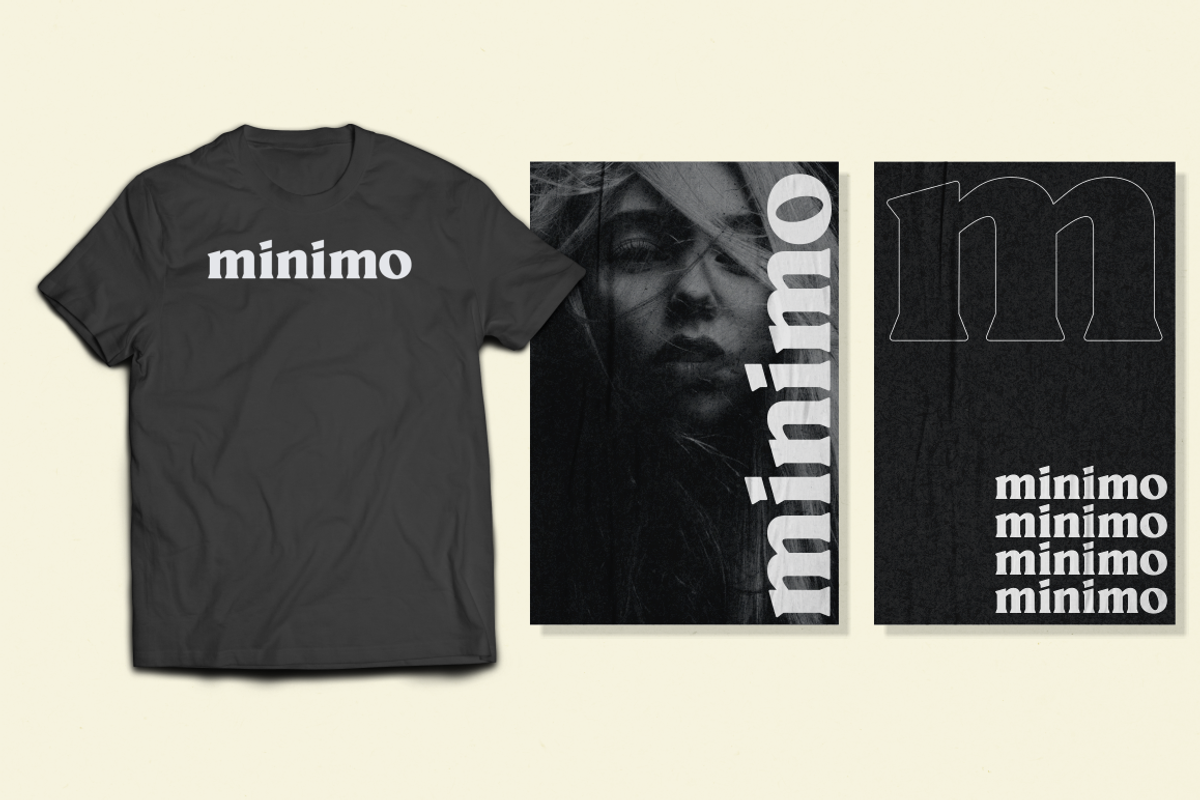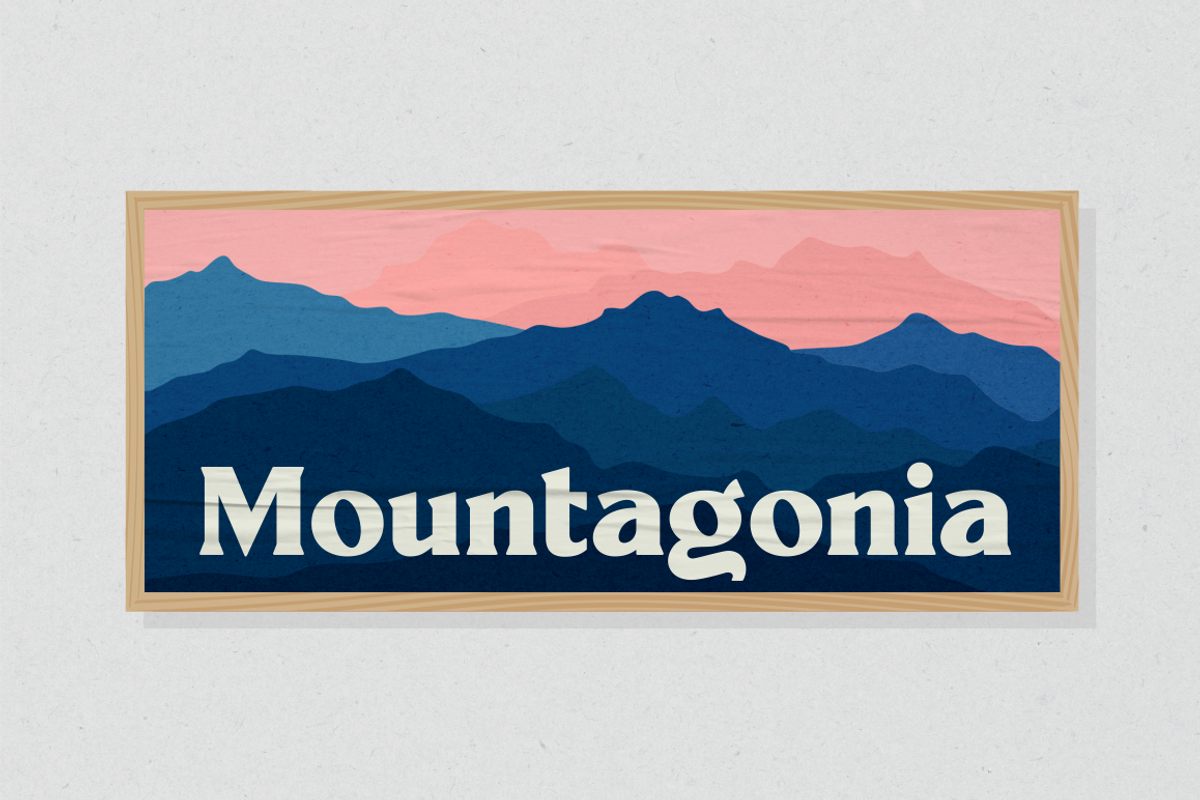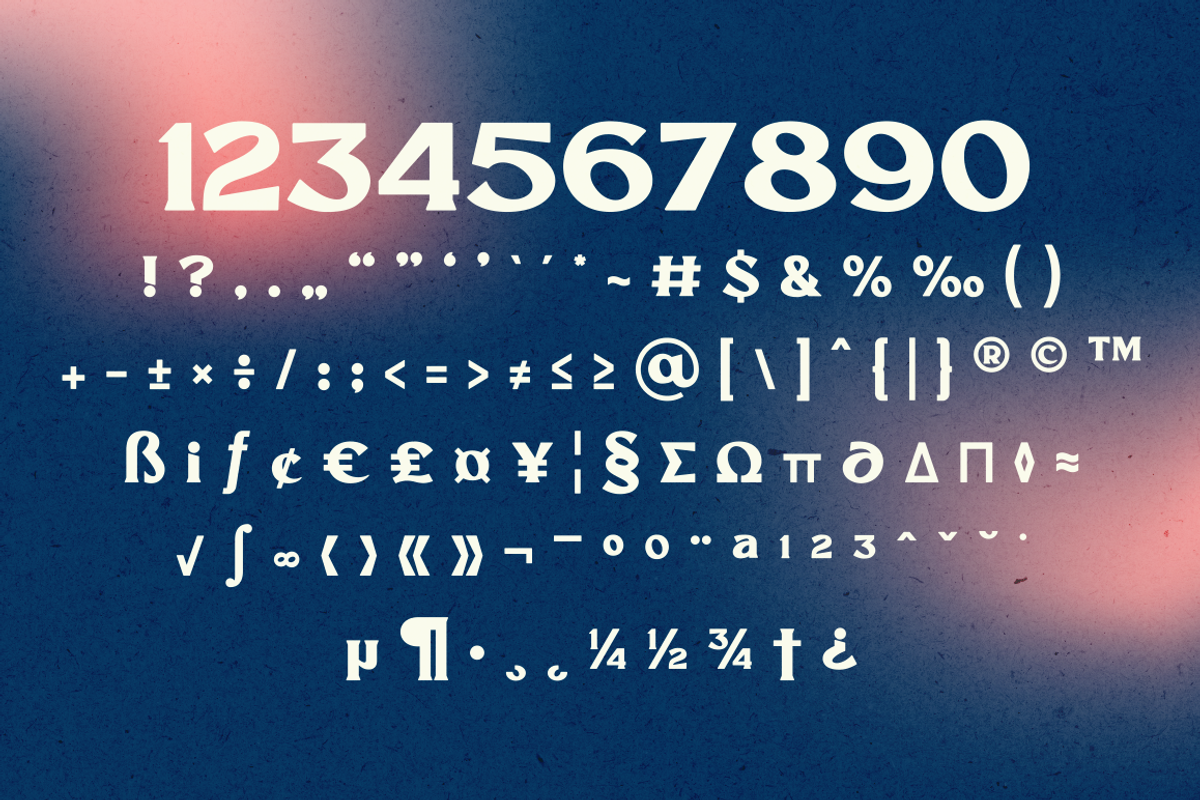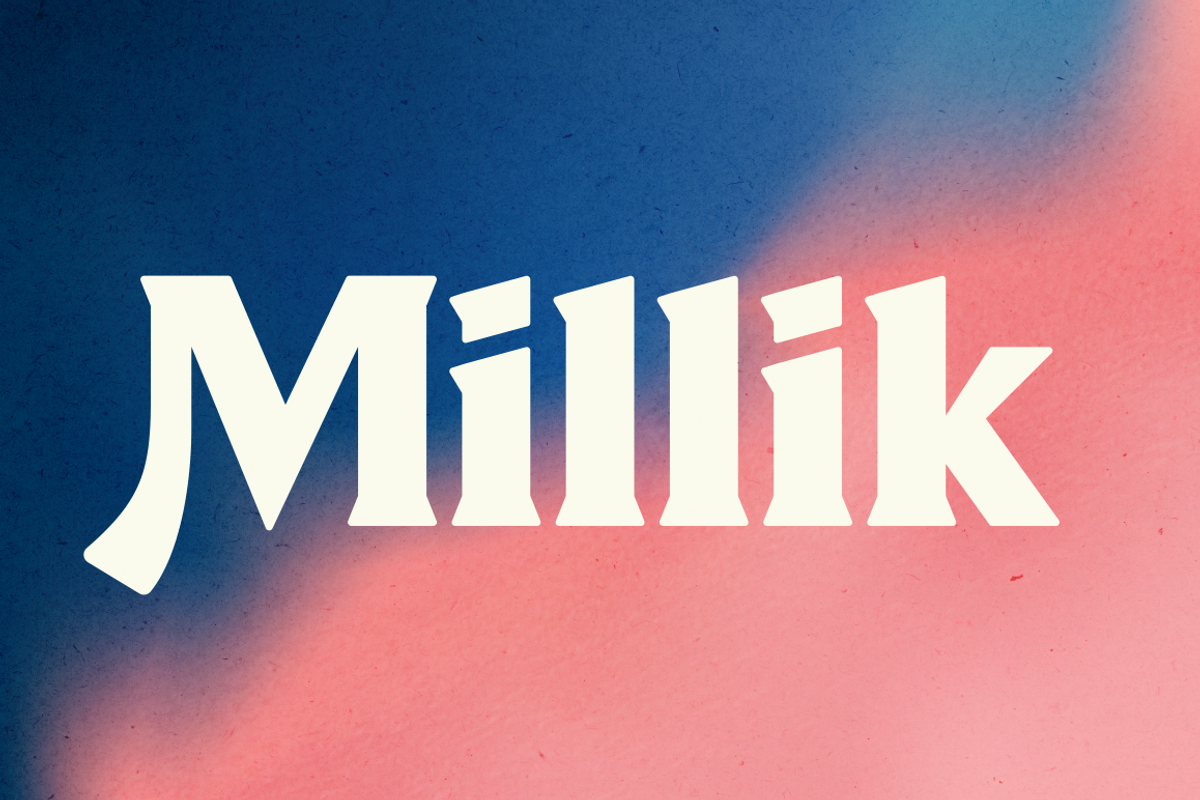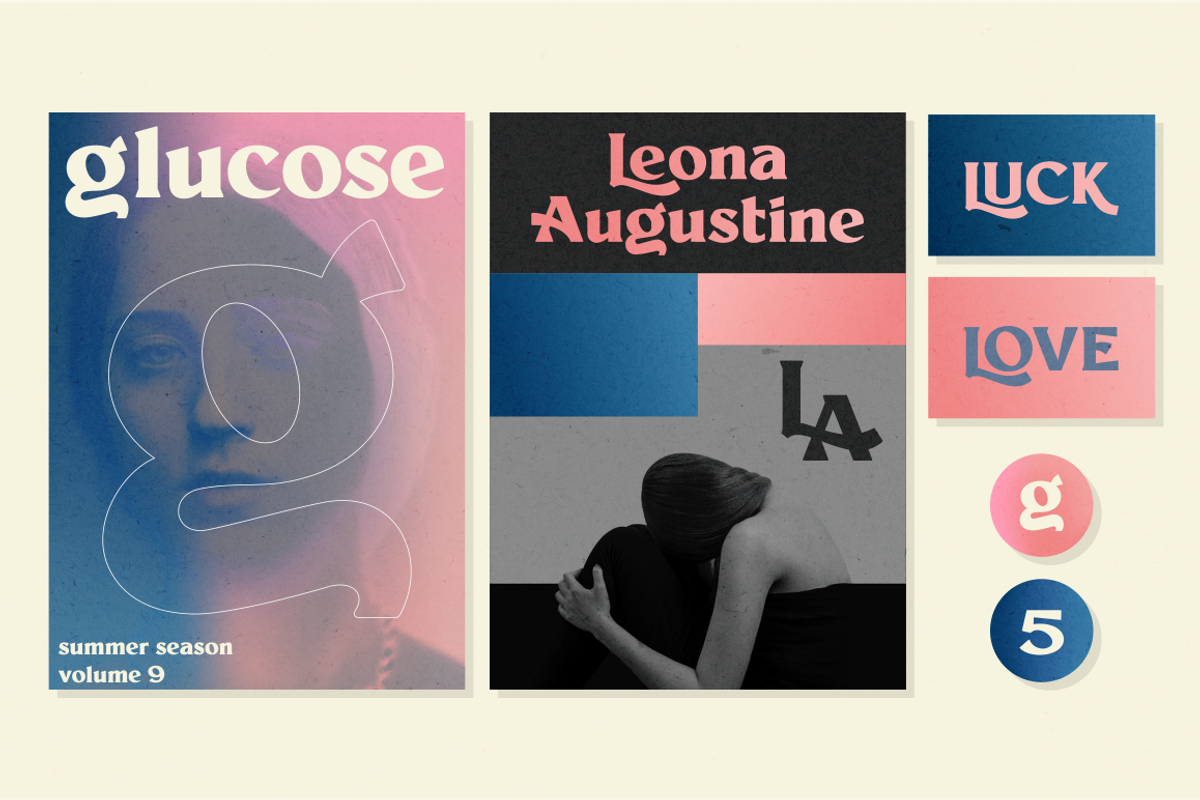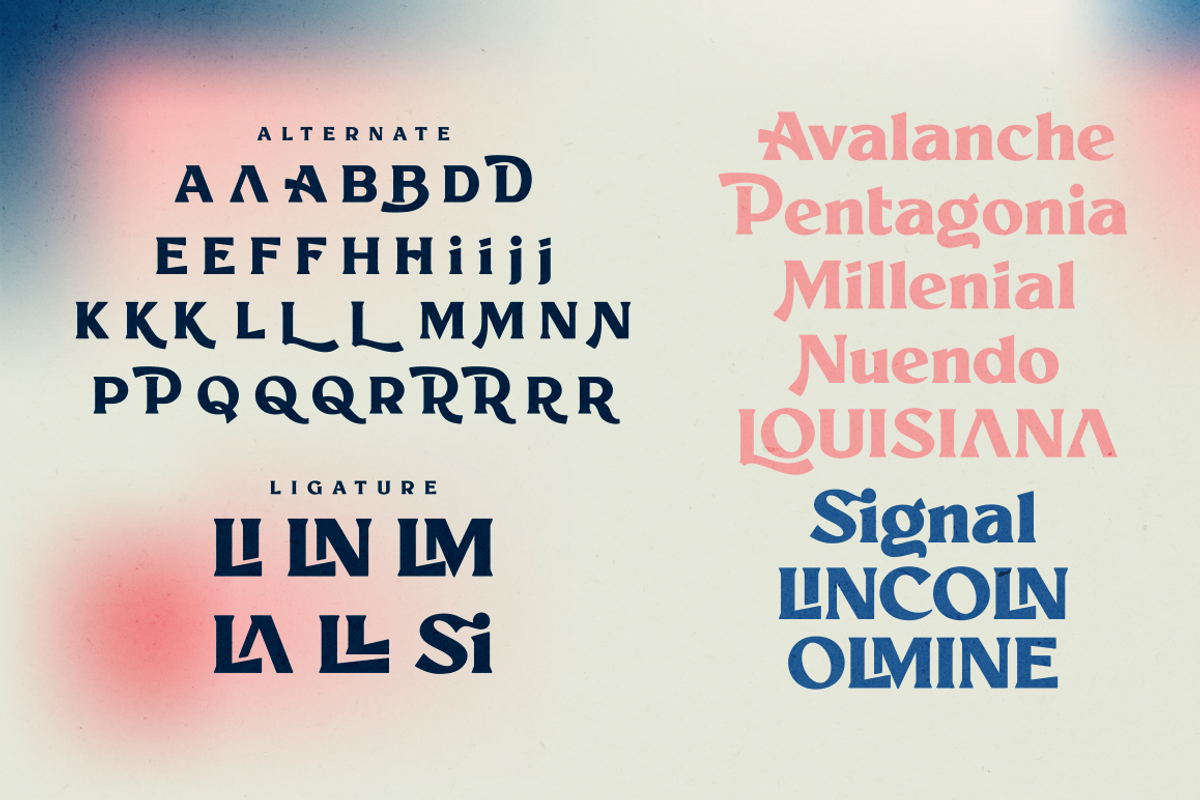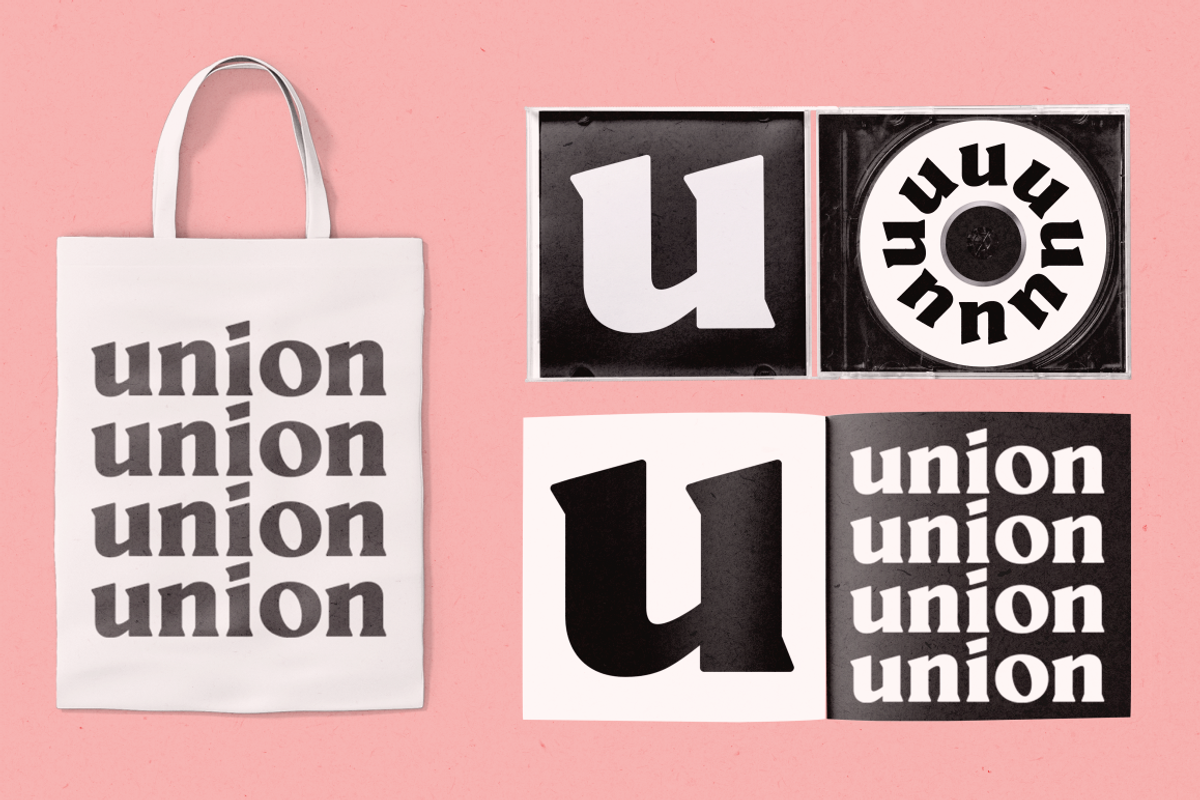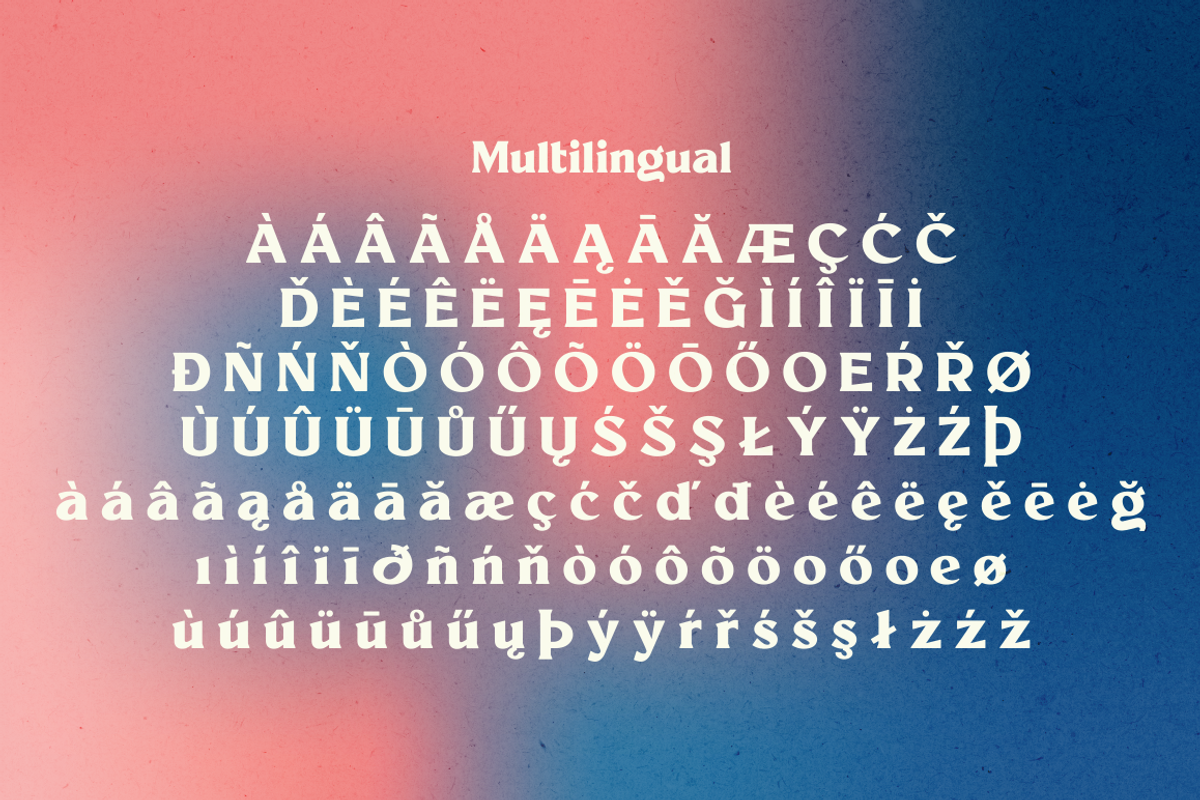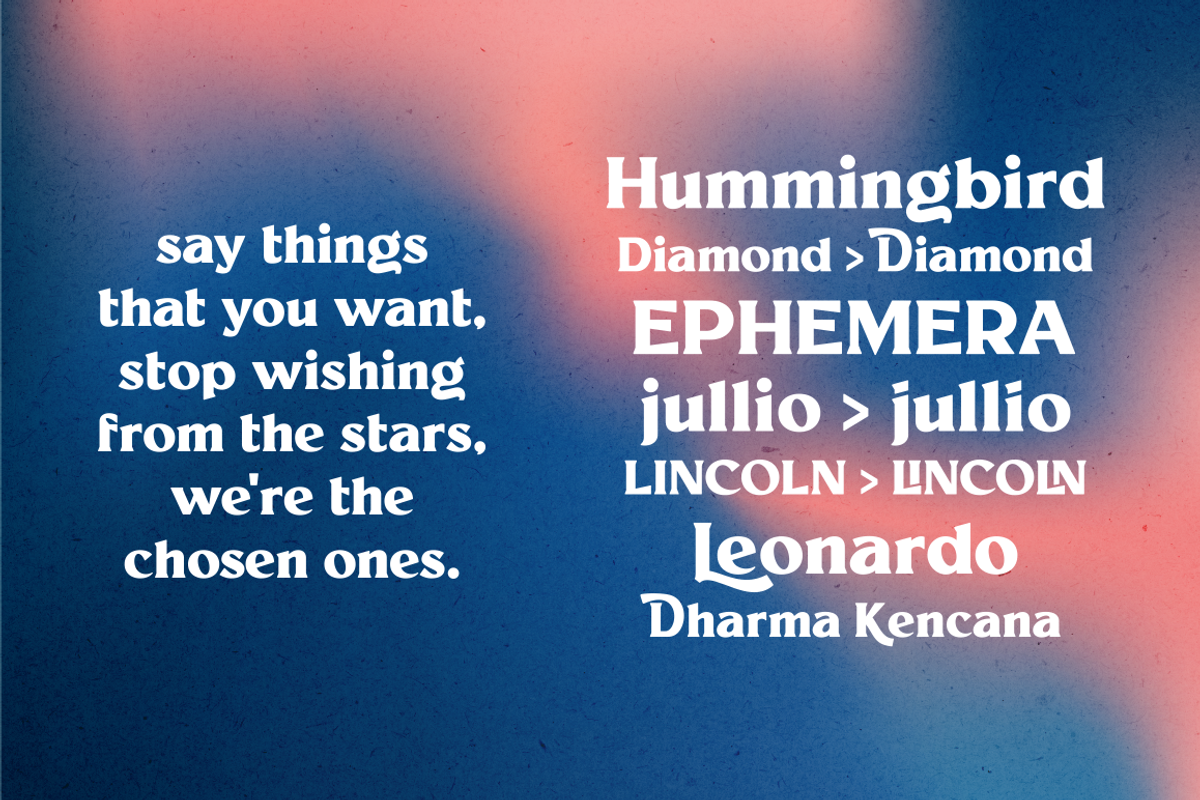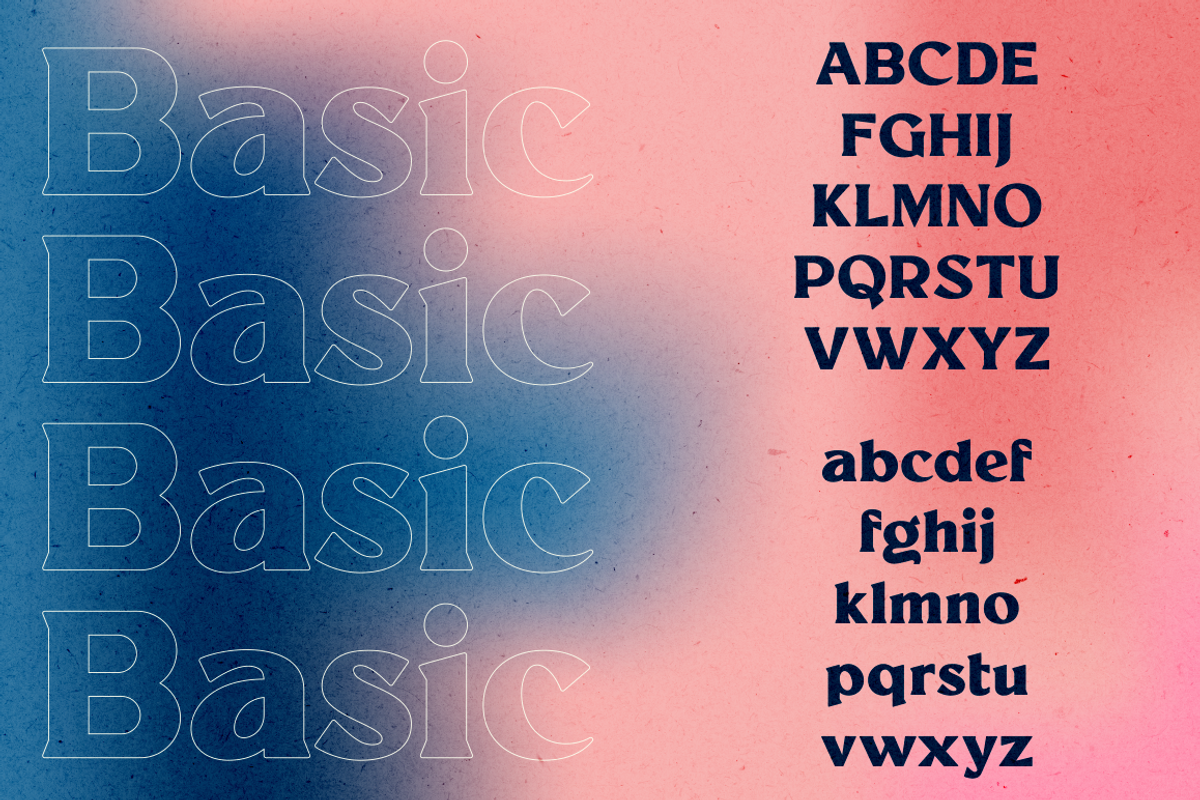
Millik Font
Millik is multipurpose and unique display font, you can use it in modern and vintage design. This font will suitable for any project, like branding, print template, logo and etc. Millik include uppercase and lowercase, ligature and alternate style,and also multilingual support.